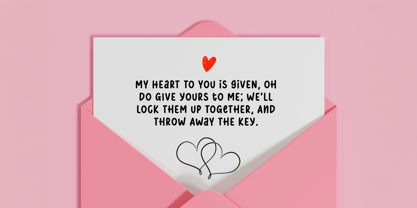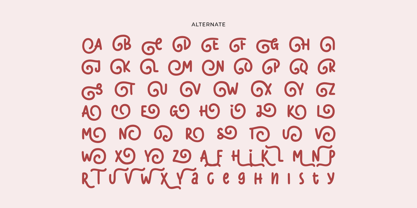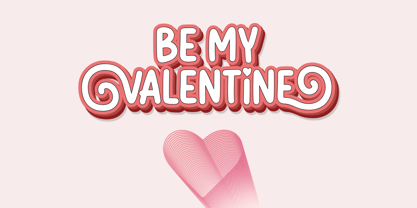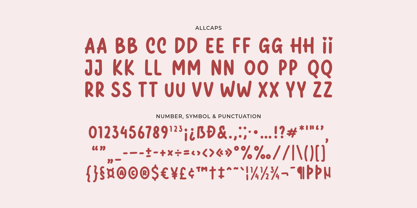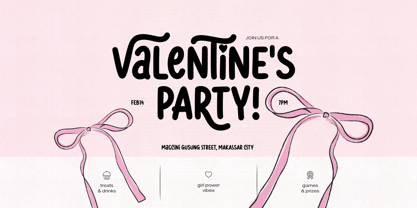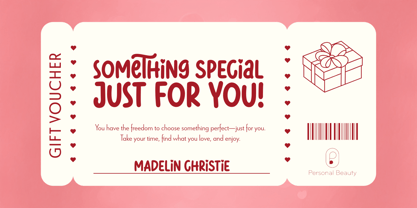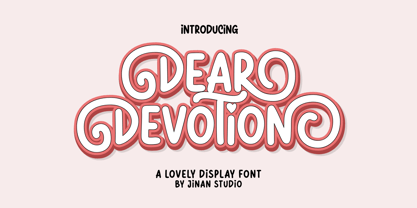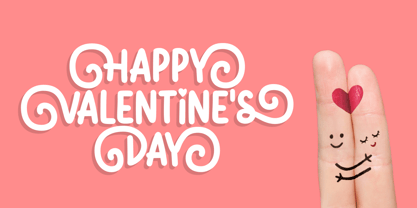
Dear Devotion
by Jinan Studio
The Dear Devotion Font Family was designed by Andi Syahdang, Ainun Jinan and published by Jinan Studio. Dear Devotion contains 1 styles. More about this family
Dear Devotion is a cute and charming Valentine-themed display font with bold shapes and soft curves. It features lovely swirl details and alternate characters to create playful and unique lettering. Perfect for Valentine’s Day designs, wedding projects, greeting cards, romantic quotes, branding, packaging, and social media. This font is designed to bring a sweet and loving feel to your work. Features Allcaps Number, symbol, and punctuation Multilingual Support Alternates
Designers: Andi Syahdang, Ainun Jinan
Foundry: Jinan Studio